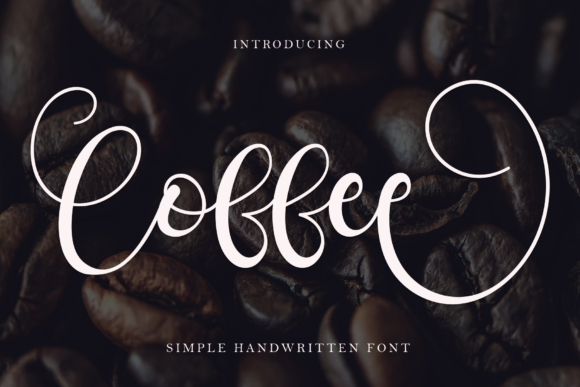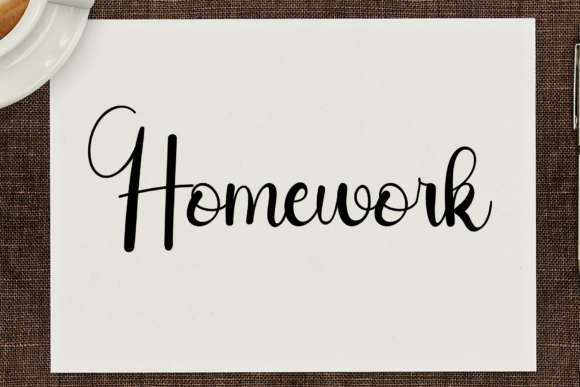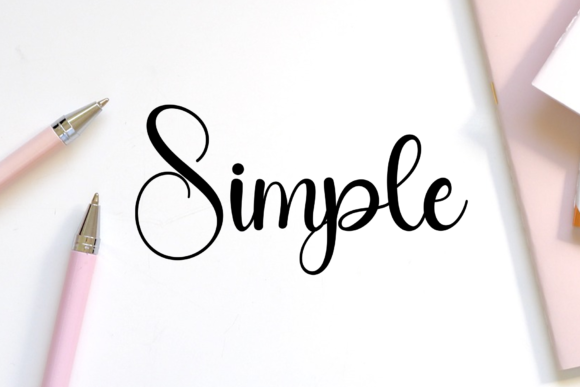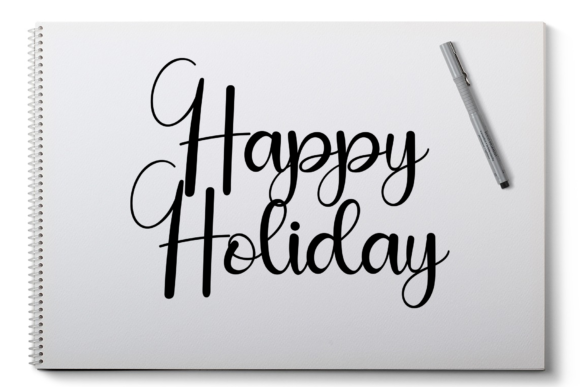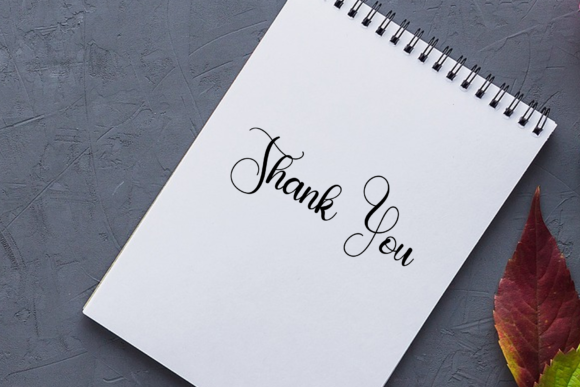
Coffee Font
Introducing a smooth, elegant, and flowing handwritten font, a beautiful and balanced character that effortlessly fits into a wide array of designs. This font is crafted to bring a sense of grace and sophistication to your creative projects, enhancing your most imaginative ideas and bringing them to life with style.
The smooth and flowing nature of this handwritten font adds a touch of fluidity and charm to any text. It brings a harmonious balance to your designs, making it versatile for a variety of creative applications. Whether used for logos, branding, invitations, or any other design endeavor, this font adapts seamlessly to different contexts.
Imagine this elegant handwritten font enhancing your designs, creating a visual experience that is both refined and captivating. Envision it becoming a key element in your branding, contributing to a polished and sophisticated visual identity. The beauty of the balanced character ensures readability while infusing a touch of artistic flair into your text.
In essence, this handwritten font is not just a tool for conveying text; it’s a design element that brings smoothness, elegance, and flow to your projects. Its versatility allows it to adapt to your creative ideas, making them come to life with a sense of grace. Choose this font to add a touch of sophistication to your designs, turning each project into a visually captivating expression of creativity.